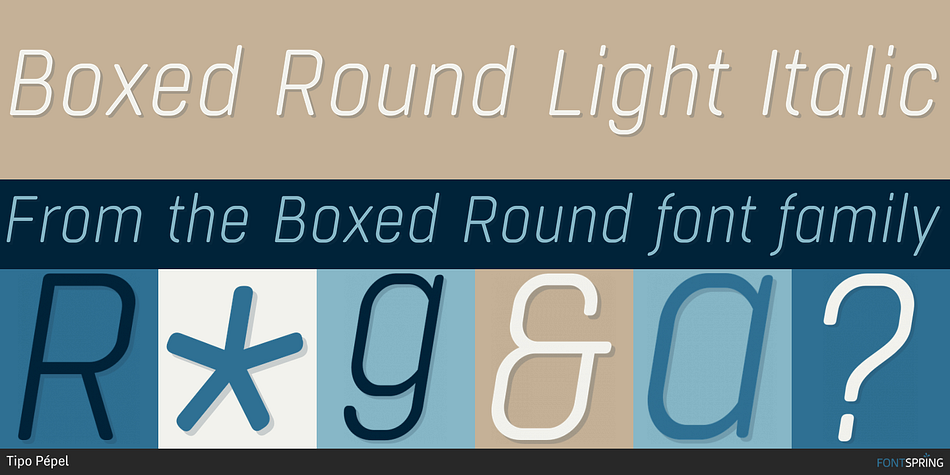
Boxed Round Light Italic
Designed by Josep Patau Bellart, Boxed Round is a sans serif font family. This typeface has eighteen styles and was published by Tipo Pépel.
Boxed Round is a rounded version of the popular Boxed font, a typeface whit 18 weights, brightly conceived and designed to look good on small screen devices, but offering also enlightened looks on paper. The semi-modular geometric font shapes seek to be fully responsive to the grid of screen’s pixels to deliver a crisp, fluid reading rate.
The rounded version offers a more warm, sweet, edible appearance that will give more freshness to your texts
Due to its extensive range of weights and subtle difference in thickness, compensating for the stain of characters between different CSS styles is really easy.
It offers an extensive set of Latin characters, even the Cyrillic.